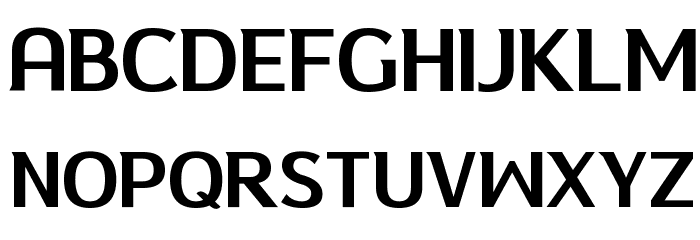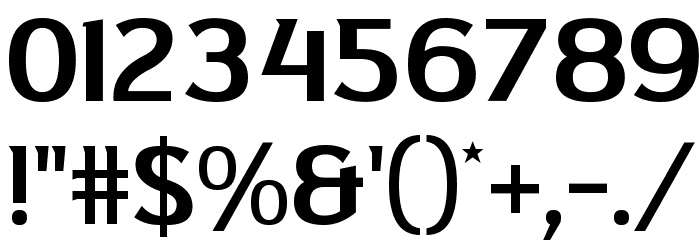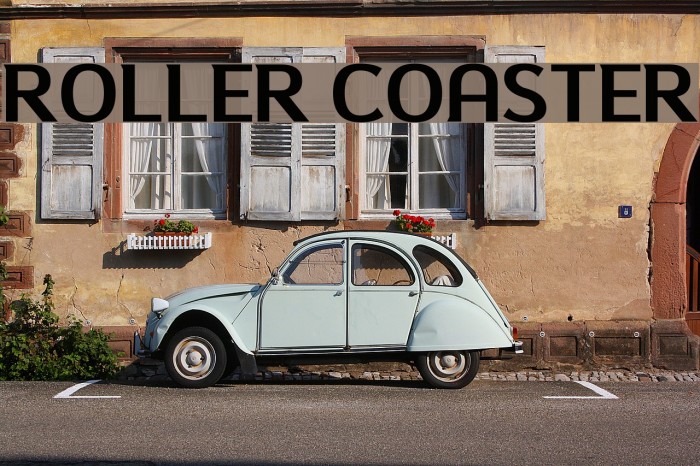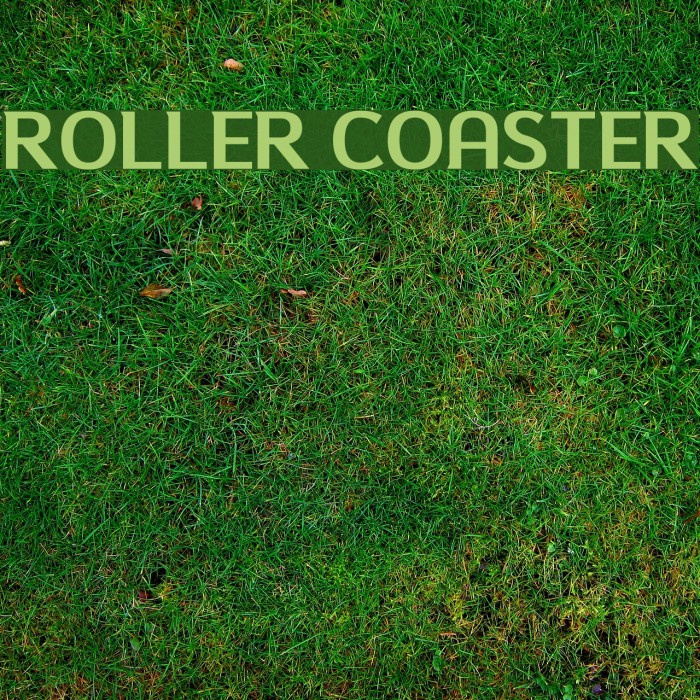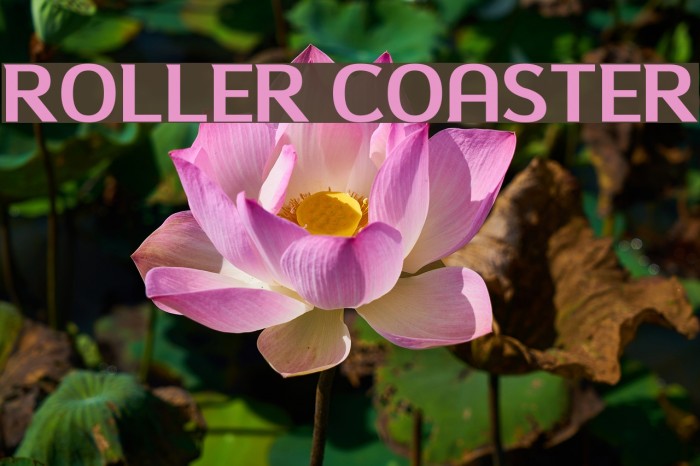
Roller Coaster Font
This font features a bold and modern sans-serif design with clean, straight lines and a geometric structure. The characters are uniform in width, providing a balanced and harmonious appearance. The uppercase and lowercase letters maintain a consistent style, with slightly rounded edges that soften the overall look. The numerals are clear and distinct, making them easily readable. Special characters are well-integrated, maintaining the font's cohesive aesthetic. This font's simplicity and clarity make it versatile for various design applications.
A bold, modern sans-serif font with geometric structure and clean lines.
- Proposed Projects: Ideal for branding, advertising, headlines, and digital interfaces where clarity and modernity are key.
- Use Case: Headlines, Logos, Branding